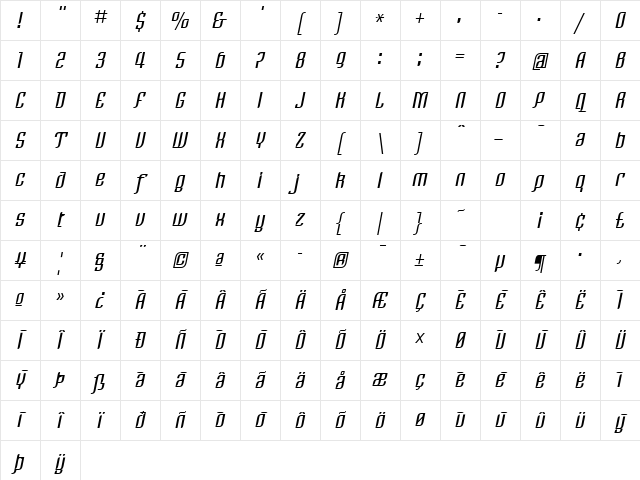
LTRezident Two Regular
Design Context for LTRezident Two
LTRezident Two is a composed and adaptable typeface that performs quietly and consistently across a wide range of design contexts.